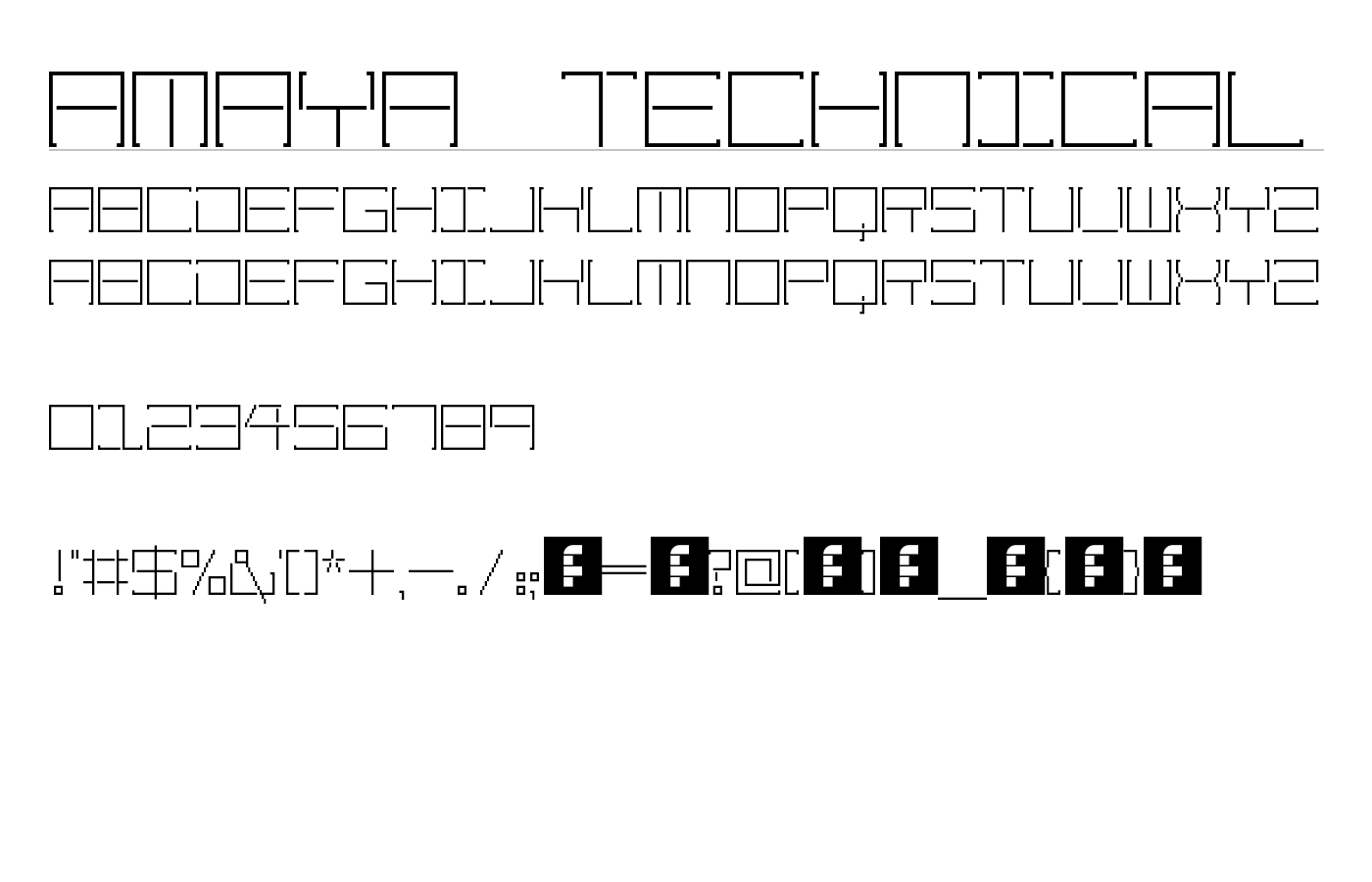
Amaya Technical is a modern, geometric sans serif font with a precise, technical feel, featuring narrow, uniform strokes and a distinctly square structure. Its clean lines and minimal contrast make it ideal for technical documents, digital interfaces, and futuristic branding that require clarity and a structured, engineered aesthetic. This font works best in headlines or logos where a crisp, modern, and digital vibe is desired.
Amaya Technical Font
About Amaya Technical Font